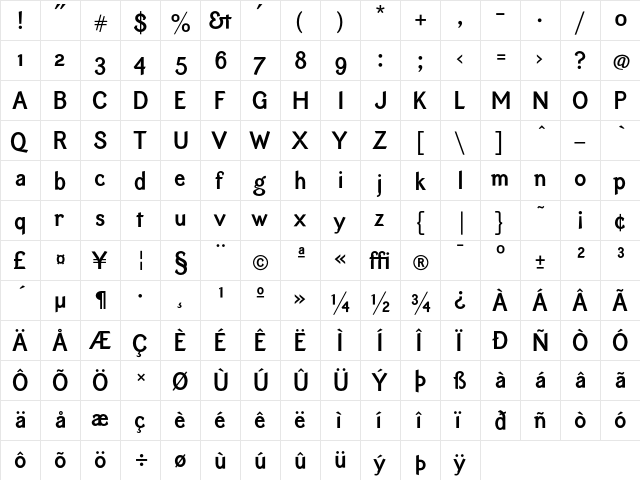
EquipoizeSans Bold
Design Context for EquipoizeSans Typeface
EquipoizeSans is a composed and adaptable typeface that performs quietly and consistently across a wide range of design contexts. The heavy weight commands attention and anchors typographic hierarchies.